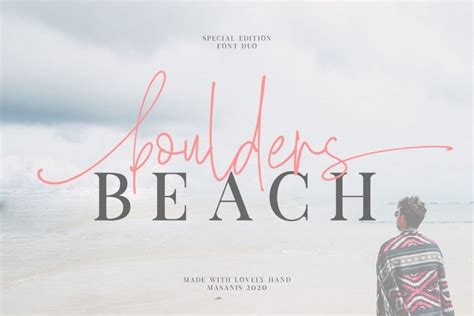
Boulders Beach Script Font
Boulders Beach Script Font - This font is perfect for logo, invitation, stationery, wedding designs, social media posts, advertisements, product packaging,. Web boulders beach script font is a gorgeous font duo that’s perfectly made for resembling a sophisticated and timeless look. This font is perfect for logo, invitation, stationery, wedding designs, social media posts, advertisements, product. Web boulders beach script is a new font duo with modern elegant style. Boulders beach by masanis studio. Combine the script and serif font and achieve stunning results! Web boulders beach font was created to look as close to a natural handwritten script as possible by including over 100 ligatures, and a full set of lowercase alternates. Hello meet our new font duo with modern elegant style. This font is demo font free for personal use only. Web boulders beach script font.
This font is perfect for logo, invitation, stationery, wedding designs, social media posts, advertisements, product. Hello meet our new font duo with modern elegant style. This font is perfect for logo, invitation, stationery, wedding designs, social media posts, advertisements, product packaging,. Web boulders beach font was created to look as close to a natural handwritten script as possible by including over 100 ligatures, and a full set of lowercase alternates. Boulders beach by masanis studio. Web boulders beach script is a new font duo with modern elegant style. Web boulders beach script font. Web boulders beach script font is a gorgeous font duo that’s perfectly made for resembling a sophisticated and timeless look. Combine the script and serif font and achieve stunning results! This font is demo font free for personal use only.
This font is demo font free for personal use only. Web boulders beach script is a new font duo with modern elegant style. Boulders beach by masanis studio. This font is perfect for logo, invitation, stationery, wedding designs, social media posts, advertisements, product packaging,. Hello meet our new font duo with modern elegant style. This font is perfect for logo, invitation, stationery, wedding designs, social media posts, advertisements, product. Web boulders beach font was created to look as close to a natural handwritten script as possible by including over 100 ligatures, and a full set of lowercase alternates. Web boulders beach script font is a gorgeous font duo that’s perfectly made for resembling a sophisticated and timeless look. Combine the script and serif font and achieve stunning results! Web boulders beach script font.
This font is perfect for logo, invitation, stationery, wedding designs, social media posts, advertisements, product packaging,. Web boulders beach script font is a gorgeous font duo that’s perfectly made for resembling a sophisticated and timeless look. This font is perfect for logo, invitation, stationery, wedding designs, social media posts, advertisements, product. Web boulders beach script is a new font duo.
Boulders Beach Script Font
Hello meet our new font duo with modern elegant style. Web boulders beach font was created to look as close to a natural handwritten script as possible by including over 100 ligatures, and a full set of lowercase alternates. Combine the script and serif font and achieve stunning results! This font is demo font free for personal use only. Boulders.
Boulders Beach Script Font
This font is demo font free for personal use only. This font is perfect for logo, invitation, stationery, wedding designs, social media posts, advertisements, product packaging,. Web boulders beach script font is a gorgeous font duo that’s perfectly made for resembling a sophisticated and timeless look. Hello meet our new font duo with modern elegant style. Web boulders beach font.
Web boulders beach script is a new font duo with modern elegant style. This font is perfect for logo, invitation, stationery, wedding designs, social media posts, advertisements, product packaging,. Combine the script and serif font and achieve stunning results! This font is perfect for logo, invitation, stationery, wedding designs, social media posts, advertisements, product. Hello meet our new font duo.
This font is perfect for logo, invitation, stationery, wedding designs, social media posts, advertisements, product. Web boulders beach script font is a gorgeous font duo that’s perfectly made for resembling a sophisticated and timeless look. This font is perfect for logo, invitation, stationery, wedding designs, social media posts, advertisements, product packaging,. Combine the script and serif font and achieve stunning.
Web boulders beach font was created to look as close to a natural handwritten script as possible by including over 100 ligatures, and a full set of lowercase alternates. Web boulders beach script is a new font duo with modern elegant style. This font is perfect for logo, invitation, stationery, wedding designs, social media posts, advertisements, product packaging,. Boulders beach.
Web boulders beach script is a new font duo with modern elegant style. This font is demo font free for personal use only. Web boulders beach script font is a gorgeous font duo that’s perfectly made for resembling a sophisticated and timeless look. Boulders beach by masanis studio. This font is perfect for logo, invitation, stationery, wedding designs, social media.
Boulders beach by masanis studio. Web boulders beach font was created to look as close to a natural handwritten script as possible by including over 100 ligatures, and a full set of lowercase alternates. This font is perfect for logo, invitation, stationery, wedding designs, social media posts, advertisements, product packaging,. Hello meet our new font duo with modern elegant style..
Boulders Beach By Masanis Studio.
This font is perfect for logo, invitation, stationery, wedding designs, social media posts, advertisements, product packaging,. Web boulders beach font was created to look as close to a natural handwritten script as possible by including over 100 ligatures, and a full set of lowercase alternates. This font is perfect for logo, invitation, stationery, wedding designs, social media posts, advertisements, product. Web boulders beach script font is a gorgeous font duo that’s perfectly made for resembling a sophisticated and timeless look.